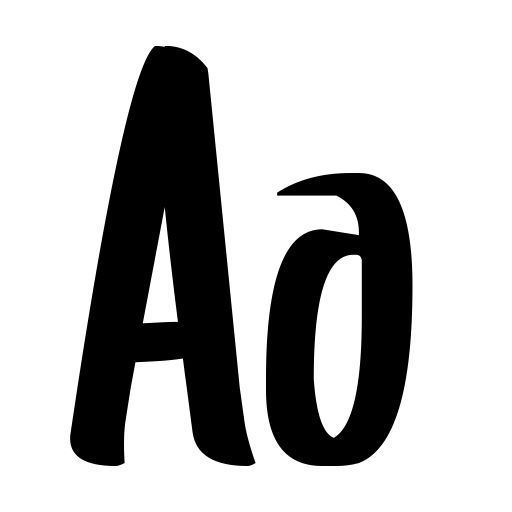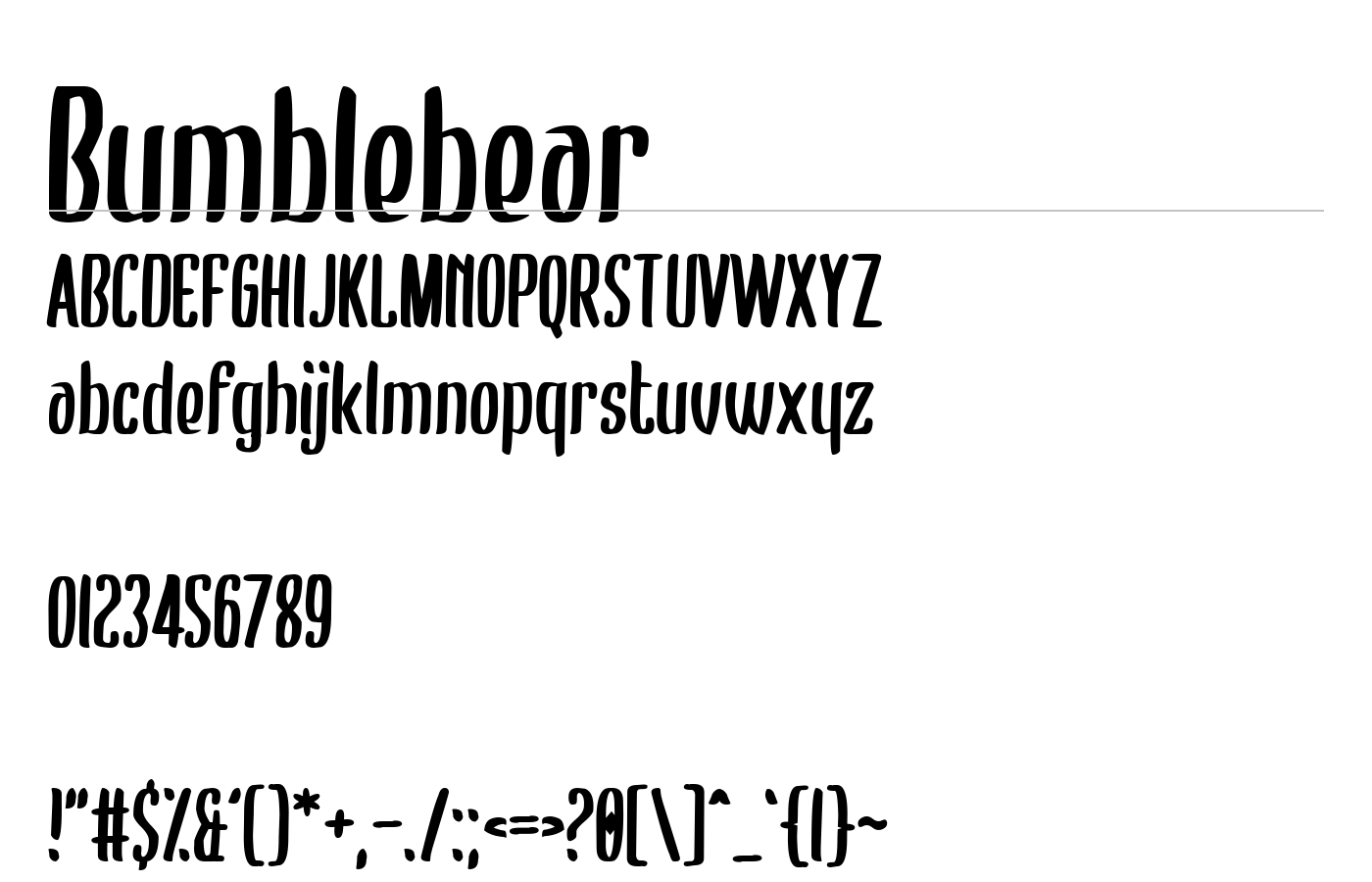
Bumblebear is a playful and tall sans serif font with a condensed width and medium contrast between strokes. Its quirky, hand-drawn style features soft, rounded edges and unique letterforms that give it a friendly, approachable personality, making it ideal for creative branding, packaging, and eye-catching headlines. This font works well where a cheerful and distinctive look is desired, bringing a sense of fun and character to any design.
Bumblebear Font